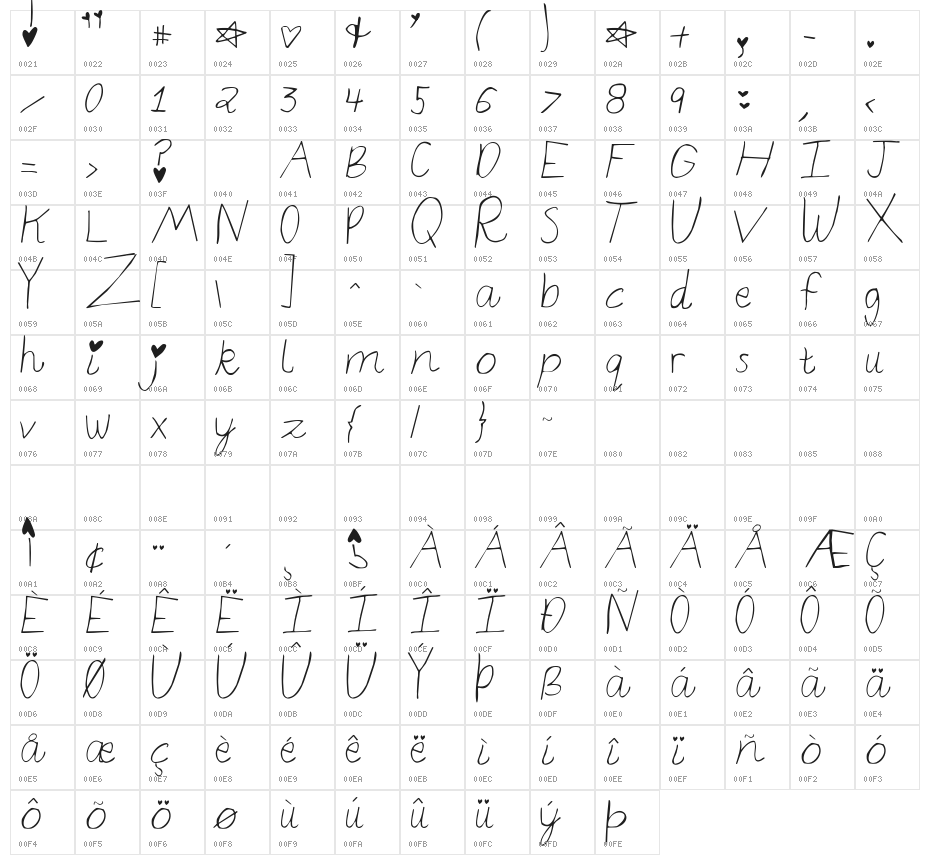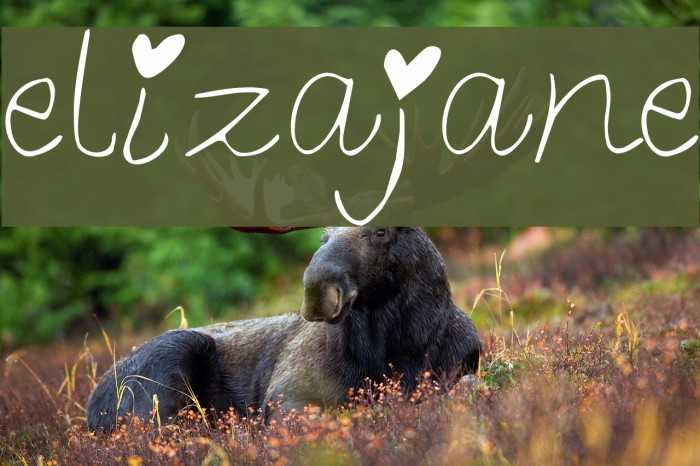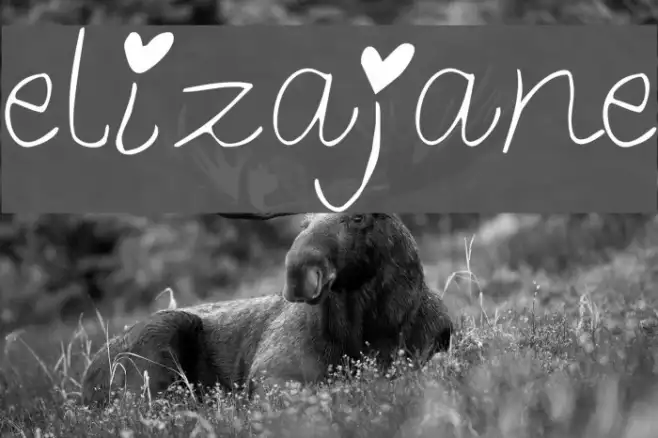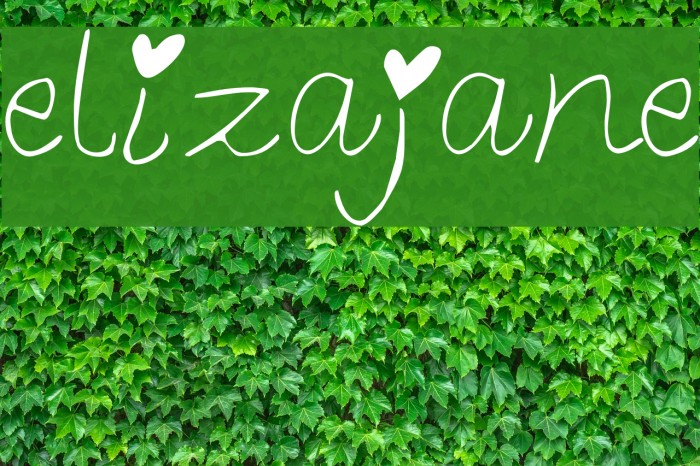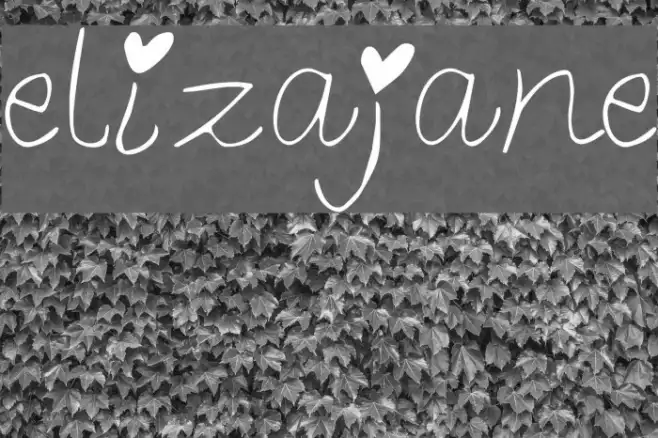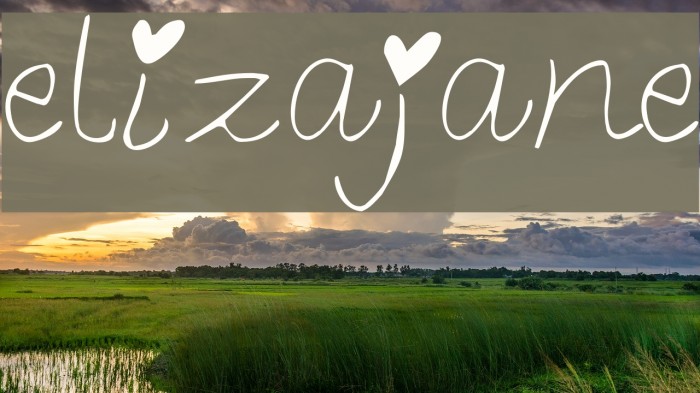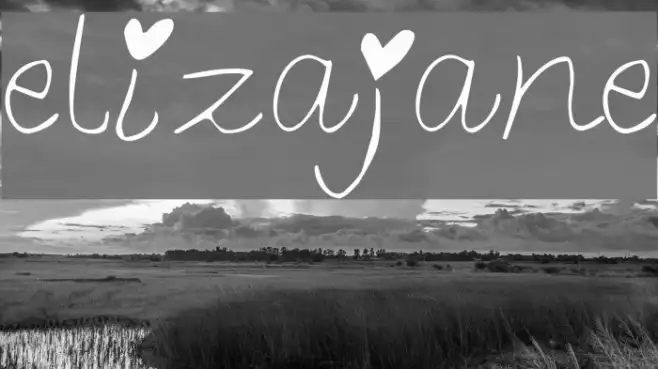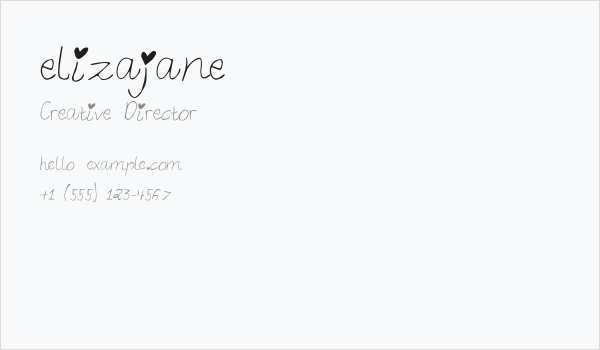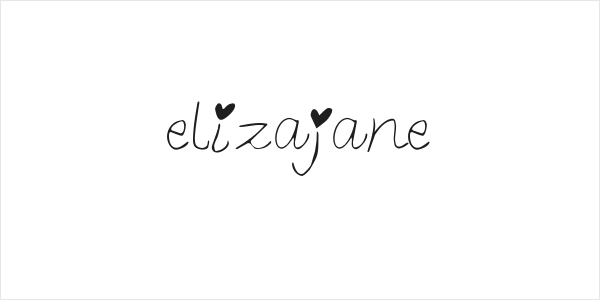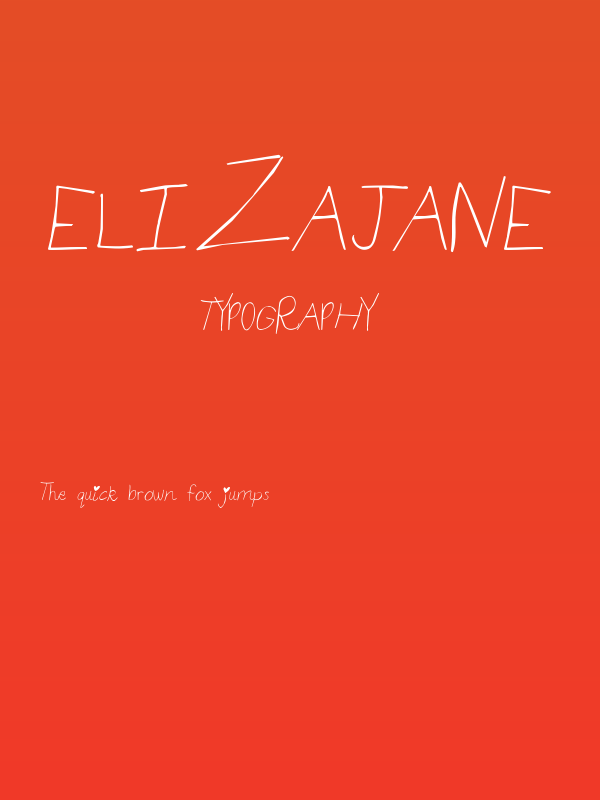
elizajane Font
elizajane Description
This font exudes a playful and whimsical charm, characterized by its handwritten style that mimics casual penmanship. The letters are slightly irregular, adding a personal touch that feels both informal and inviting. Uppercase and lowercase letters maintain a consistent flow, with some characters featuring unique embellishments, such as hearts replacing dots on the 'i' and 'j'. The numerals are bold and clear, ensuring readability while maintaining the font's overall playful aesthetic. Special characters are creatively designed, incorporating stars and hearts that enhance the font's decorative appeal.
| Proposed Projects | Ideal for greeting cards, children's books, playful branding, and personal invitations. |